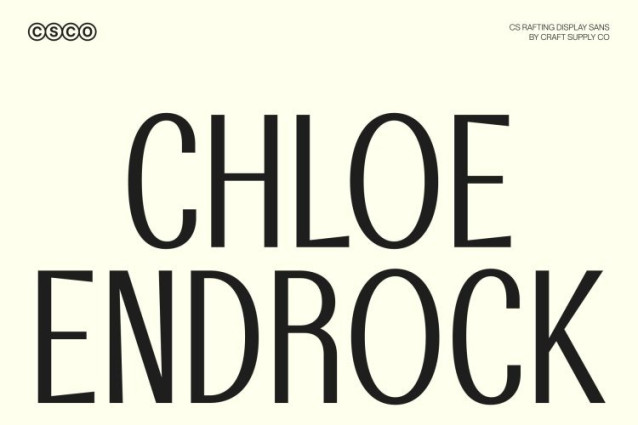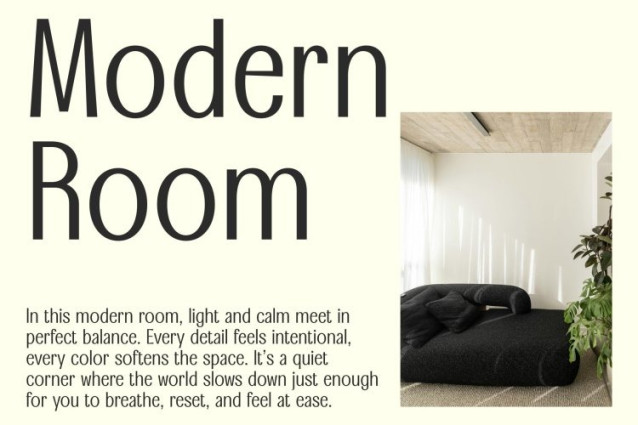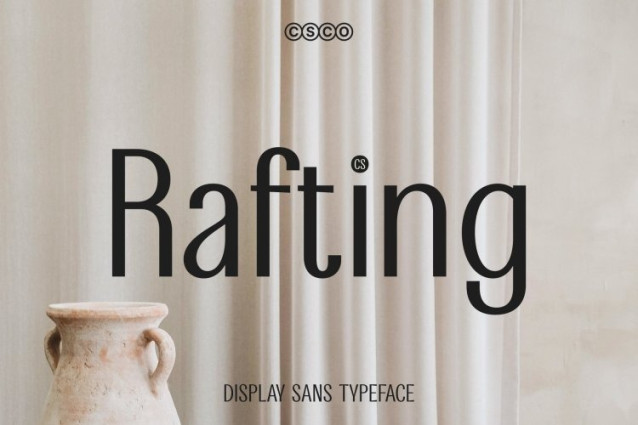
CS Rafting Font This is a modern sans serif font designed to communicate confidence through clean structure and strong proportions. Its clear construction and balanced weight give the typeface a solid, professional presence, making it highly effective for contemporary visual communication. The overall design feels assertive yet refined, allowing it to stand out without appearing aggressive.
Elongated Forms for Strength and Clarity
The elongated letterforms of this font create a distinctive vertical rhythm that enhances both strength and readability. These proportions add a sense of elegance while reinforcing clarity, making text feel structured, focused, and visually powerful. The clean lines ensure the font performs well at various sizes, from bold headlines to refined editorial layouts.
Clean Design with Modern Character
This font embraces a modern aesthetic built on simplicity and precision. Its minimal detailing keeps the typography sharp and versatile, while subtle design nuances prevent it from feeling sterile. This balance results in a sans serif that feels modern, confident, and adaptable across a wide range of creative contexts.
Perfect for Headlines, Branding, and Editorials
Ideal for headlines, branding, and editorial use, this font delivers strong visual impact with clear communication. Whether applied to brand identities, magazines, posters, or digital content, it brings elongated elegance, strength, and clarity to designs that demand a clean and confident typographic voice.